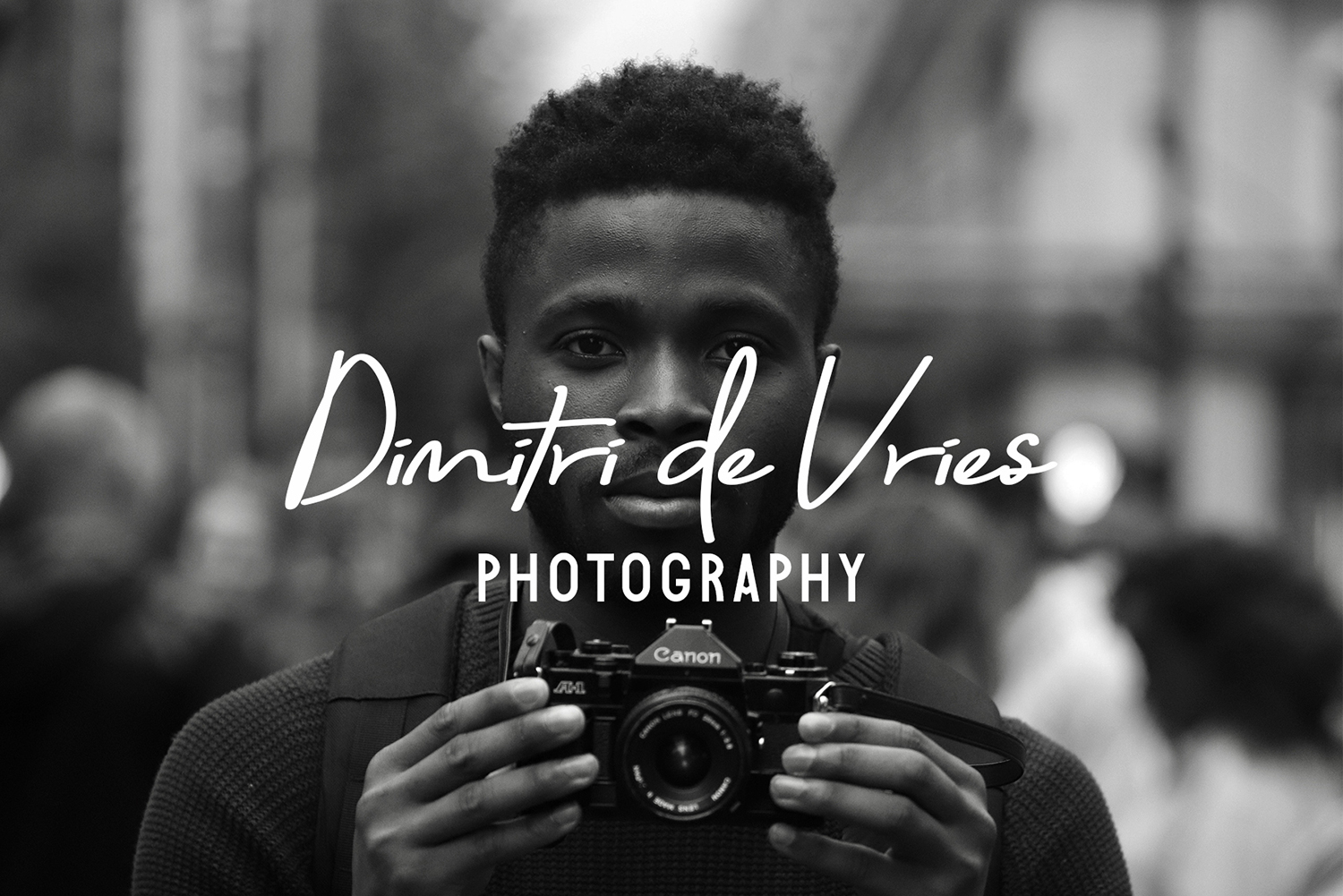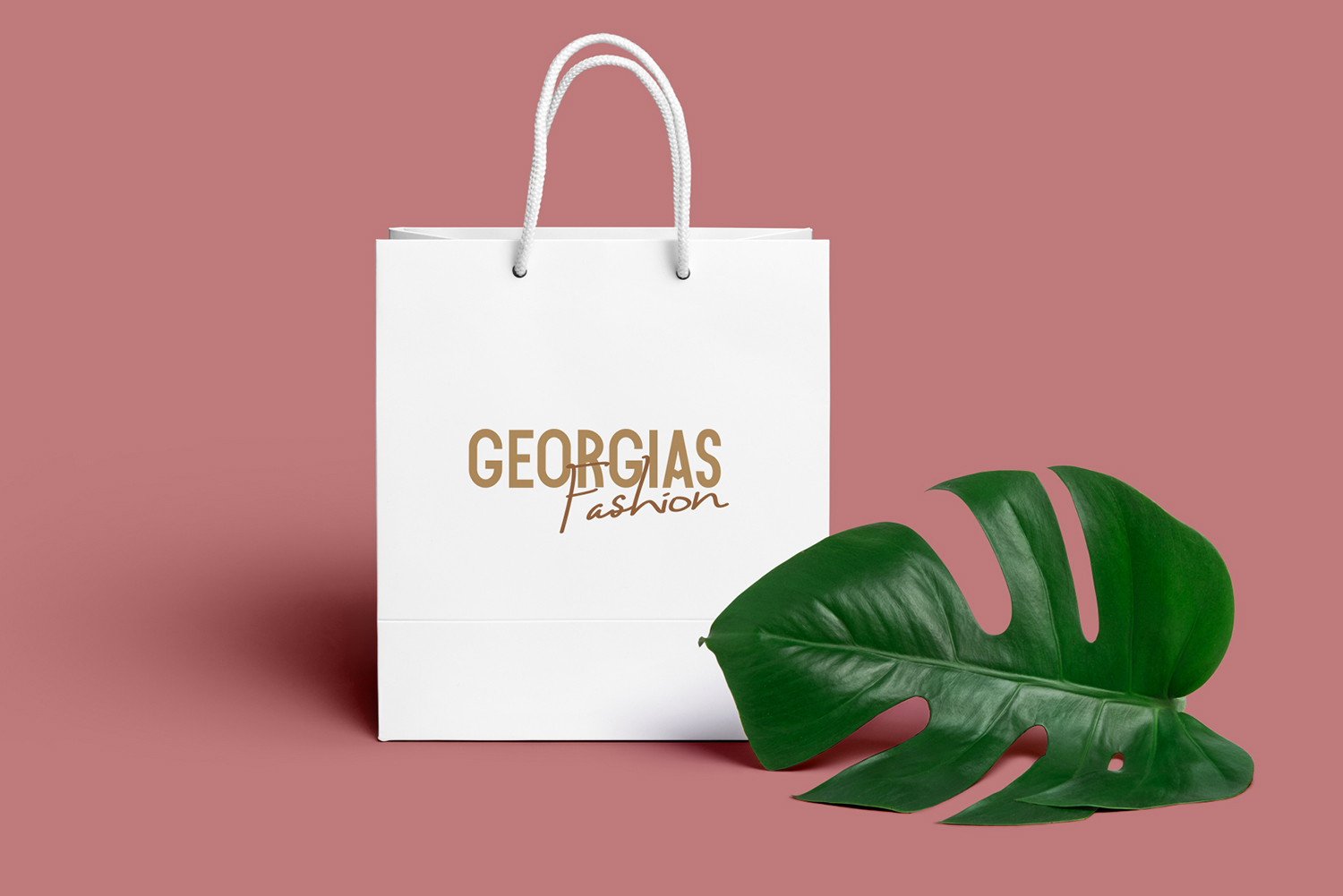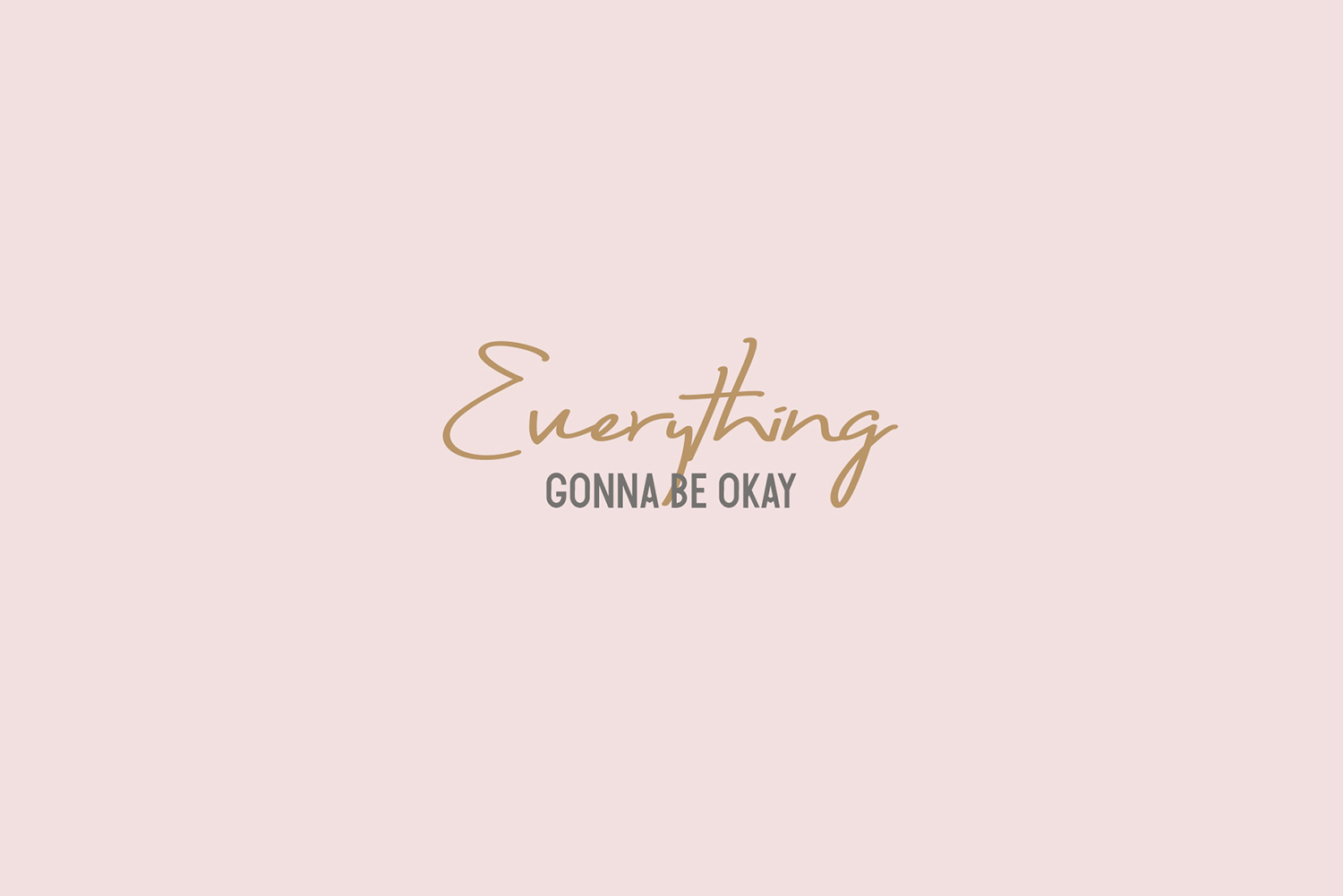
Bonjour de Jong Free Font
Bonjour de Jong Free Font is a stunning modern font duo that makes for gorgeous logos, posters, wedding invitations, blog posts, social media, and more. This free typeface was designed by talented Wellscript Studio. If you like it don’t forget to check out the full version.